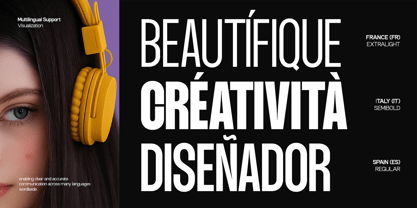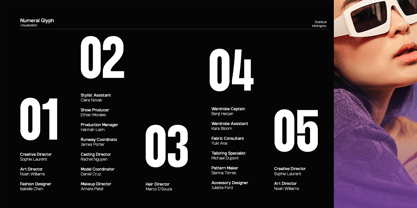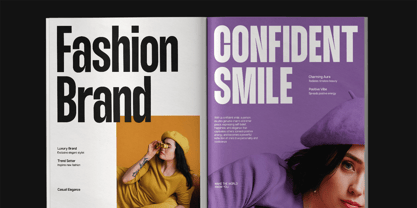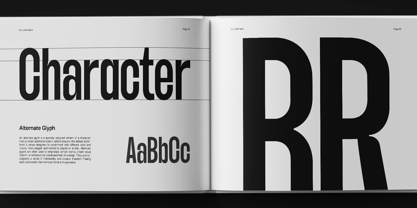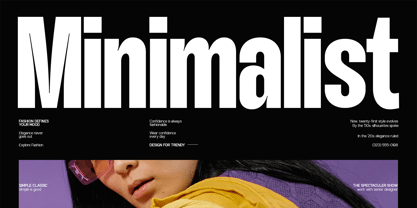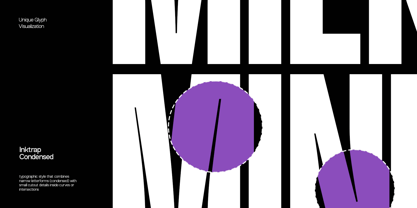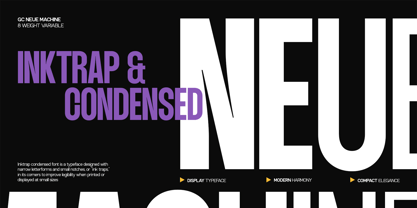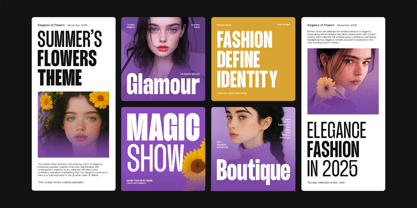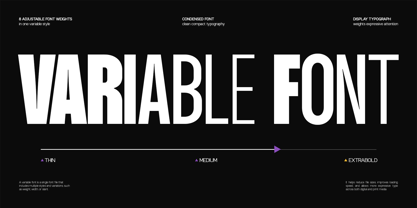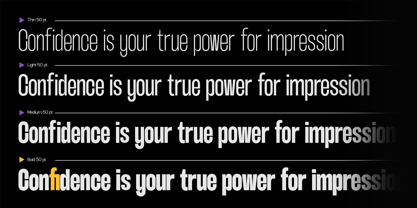
GC Neue Mancho
by Onyx Studio
The GC Neue Mancho Font Family was designed by Muhammad Hafiizh Solana and published by Onyx Studio. GC Neue Mancho contains 8 styles and family package options. More about this family
GC Neue Mancho — Modern Streamlined Precision is a condensed sans serif typeface built for versatility, balance, and impact. With tall proportions and clean geometry, it embodies a refined yet powerful visual rhythm that stands out across digital and print media. Designed to deliver clarity and modern elegance, it’s ideal for bold headlines, tech-inspired identities, editorial layouts, and futuristic branding concepts. Balanced detailing and variable flexibility make GC Neue Mancho adaptable yet distinctive—perfect for designers who seek both structure and sophistication in their typography. Features: 8 Weights + Variable Version Uppercase & Lowercase Numbers & Punctuation Condensed Modern Structure Multilingual Support (170+ Languages) Bring precision, style, and modern harmony to your design with GC Neue Mancho.
Designers: Muhammad Hafiizh Solana
Foundry: Onyx Studio